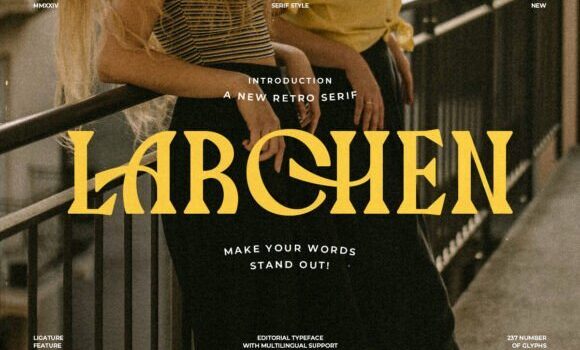
larchen
Larchen Font – Free Download Introduction to Larchen Font Larchen is a ligature serif with bold and strong style. 📸 Preview Gallery 6 images 📌 Product Name Larchen Font 👤 Author saridezra 📂 Category Explore ⬇️ Download Larchen Font FREE